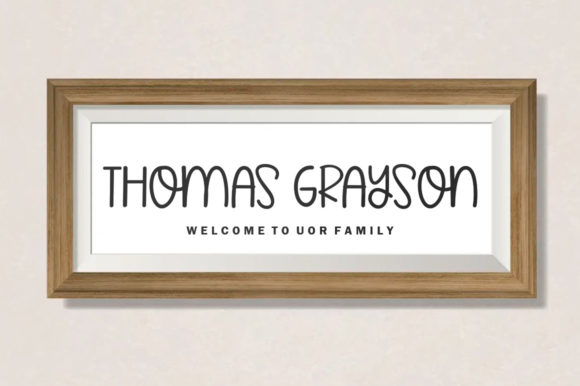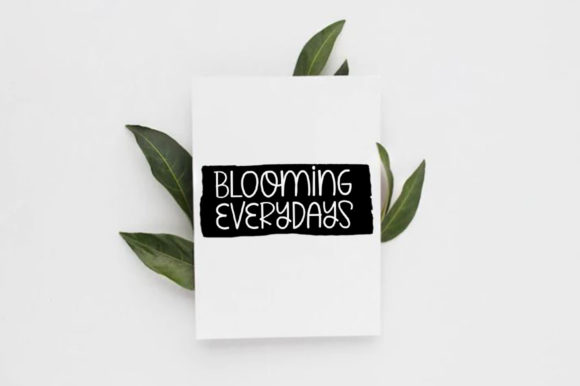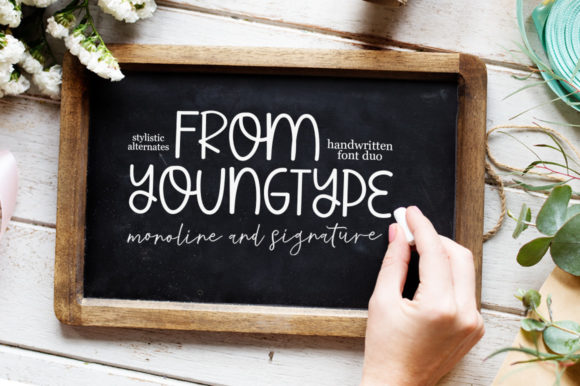
Introduction to Joyful Magnolia Duo Font
Joyful Magnolia is a handwritten font duo.
One of the fonts is a casual and playful handwritten font, while the other one is a signature-style script This duo is ideal for watercolor designs or hand bold styles such as blog headers, posters, wedding elements, t-shirts, apparel, book covers, business cards, greeting cards, branding, merchandise, invitations, handmade quotes, etc.
Key Features of Joyful Magnolia Duo Font